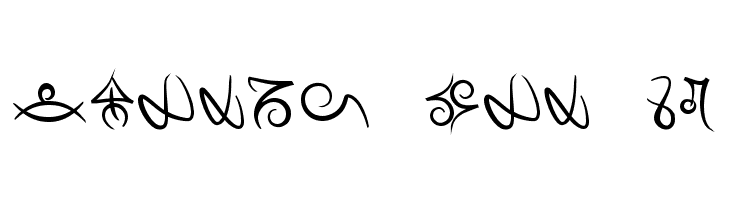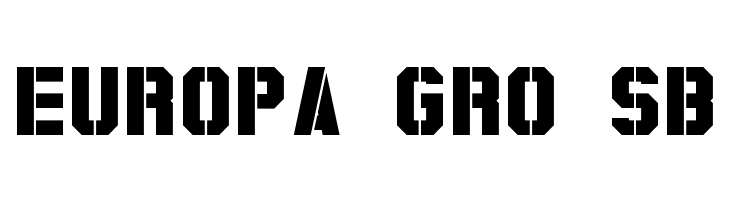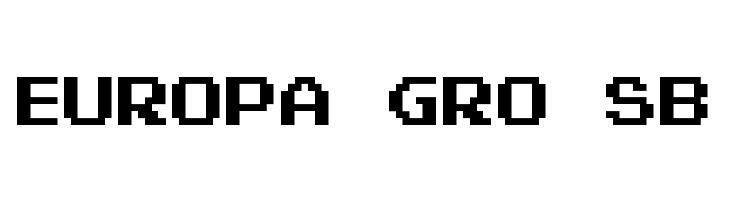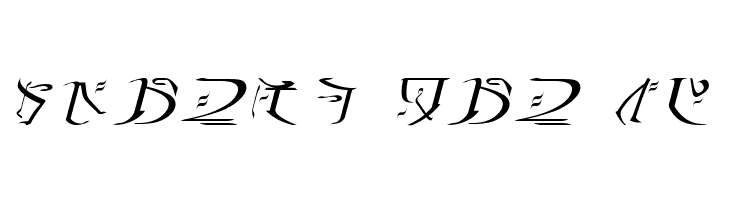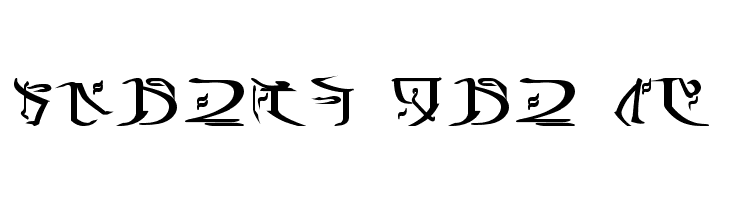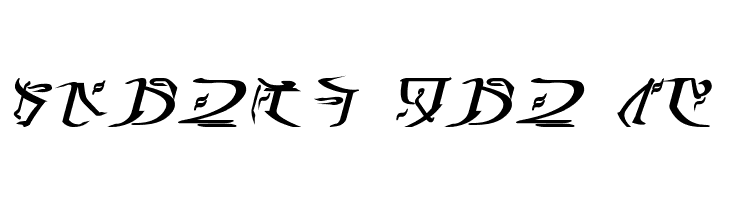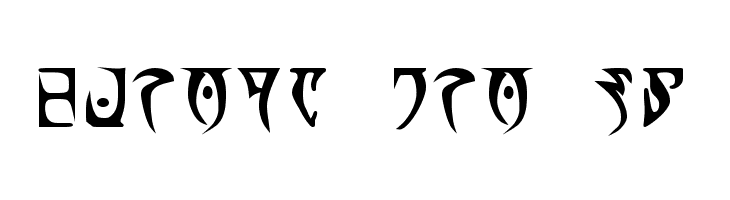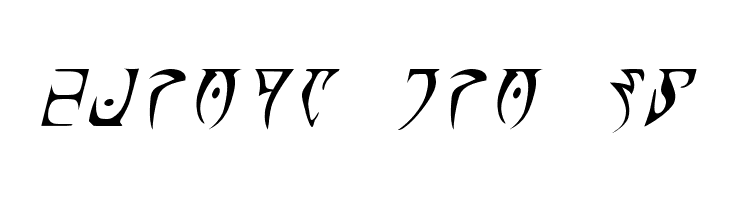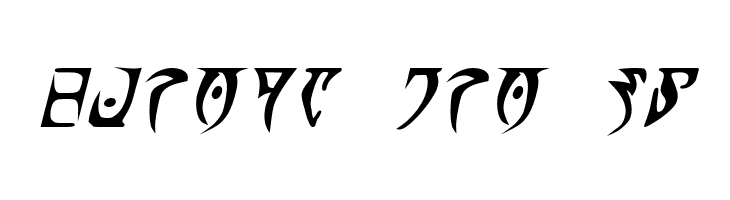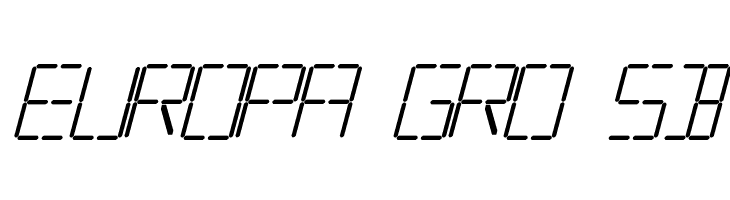
• Mage Script Bold
A mystical, rune-like decorative font with bold, intricate designs.
• Coburn
A bold, geometric stencil font with a modern, industrial feel.
• Pixel Emulator
A pixelated, retro-style font ideal for nostalgic and tech-themed projects.
• Falmer Italic
A decorative and intricate font with artistic letterforms and dynamic strokes.
• Falmer Bold
A decorative, fantasy-inspired font with intricate, angular designs.
• Falmer Bold Italic
A bold, decorative font with Gothic influences and intricate details.
• Daedra Bold
A bold, decorative font with sharp, angular characters, ideal for fantasy themes.
• Daedra Italic
A mystical, angular font with sharp, bold strokes and a runic appearance.
• Daedra Bold Italic
A bold, italicized font with sharp, angular, and mystical design.
• Silverball Bold Italic
A bold, italic, geometric font with a futuristic, digital appearance.